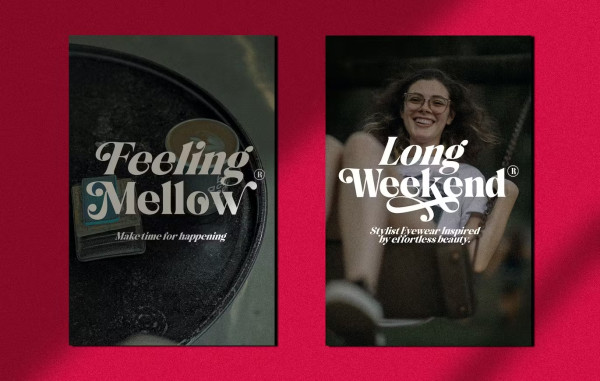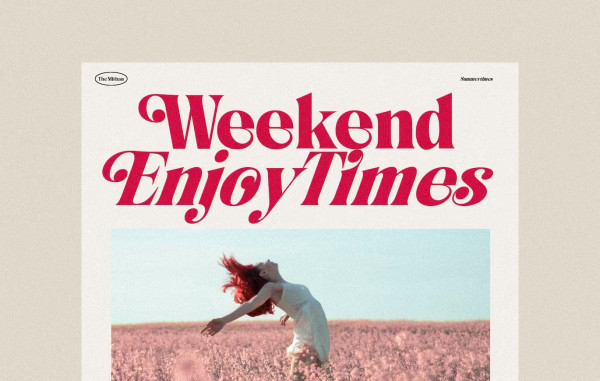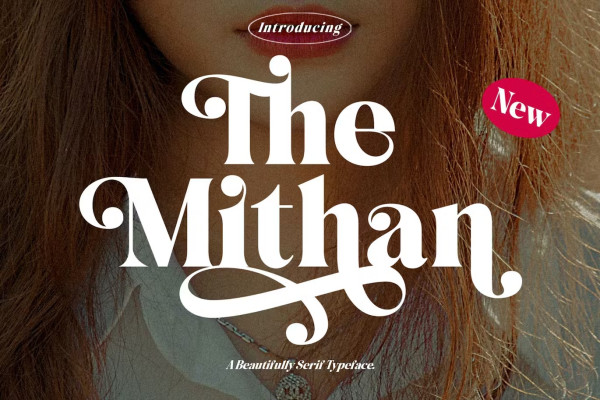
The Mithan Font
The Mithan Font is a Bold Elegant Modern vintage font with slant version. It’s a very versatile font that works great in large and small sizes. Perfect for branding projects, Logo design, product packaging, magazine headers, or simply as a stylish text overlay to any background image.